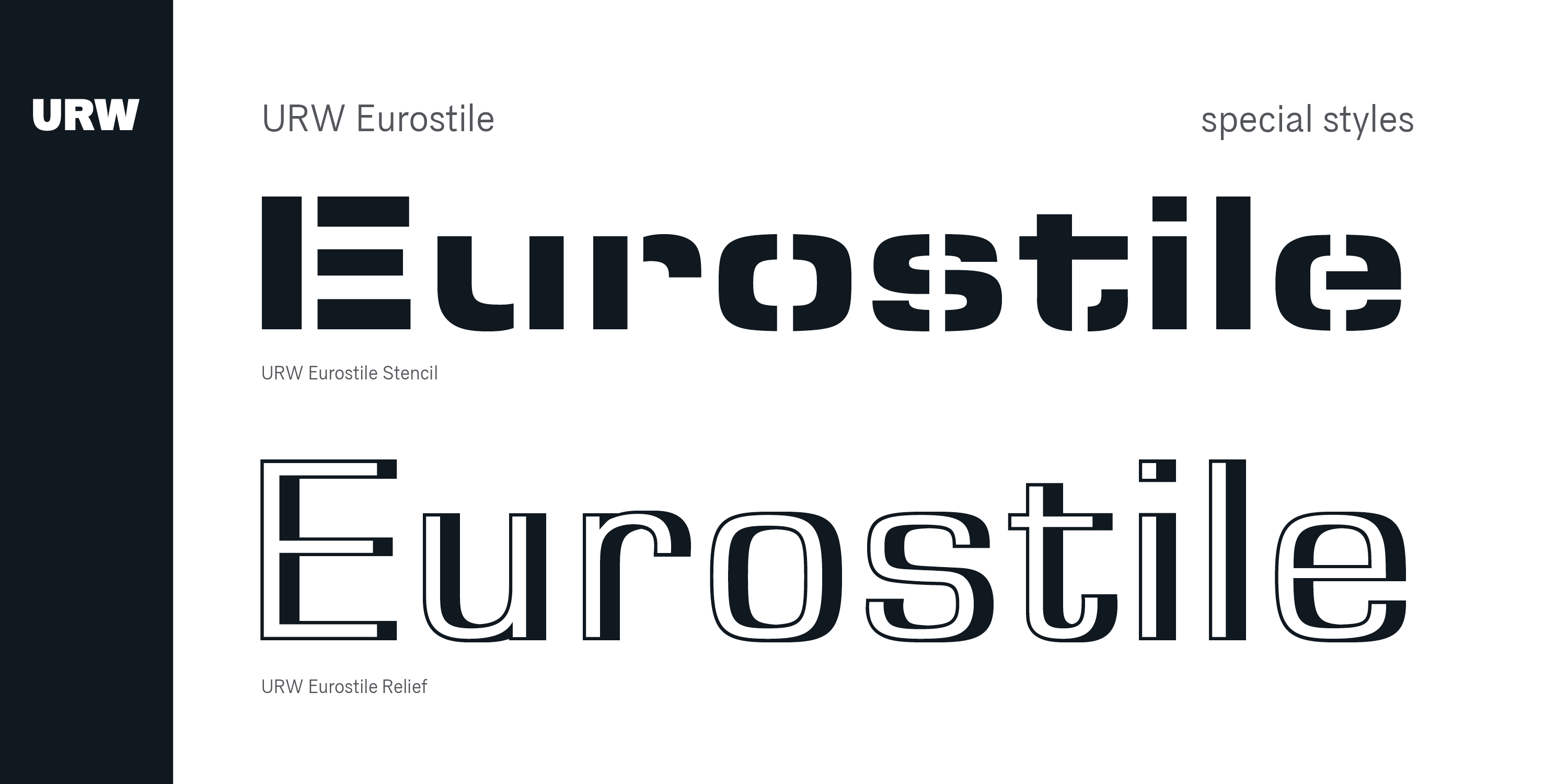
Eurostile Font excels in numerous design applications including technology branding, science fiction projects, automotive industry communications, aerospace materials, industrial packaging, futuristic signage, electronic product labels, corporate presentations, modern architecture, and cutting-edge marketing campaigns. Its technological character makes it perfect for organizations seeking to convey innovation and forward-thinking design excellence.
What makes Eurostile Font so exciting is its unique square-rounded letterforms and space-age aesthetic, featuring geometric precision, technological styling, and futuristic appeal that creates immediate recognition of innovation while maintaining excellent readability across industrial applications. The font's technological aesthetic conveys progress and modernity, making it ideal for companies seeking to establish cutting-edge positioning and scientific credibility.
The Eurostile Font family includes comprehensive weight variations: Light, Regular, Medium, Bold, Black, and their corresponding condensed and extended versions, plus technical symbol sets. Each family member maintains consistent geometric relationships while offering different levels of emphasis, providing designers with extensive typographic flexibility for systematic technological communications.
This exceptional typeface represents the perfect embodiment of mid-century futuristic design with contemporary functionality, making Eurostile Font Free Download an invaluable resource for technology designers. The font's space-age characteristics work exceptionally well in industrial and technology sectors where innovation, precision, and futuristic appeal are fundamental considerations.
Eurostile Font supports extensive international character sets including Western European, Eastern European scripts, plus comprehensive technical symbols and industrial notation. Its advanced OpenType features ensure professional typography standards across global technology communications and multilingual industrial applications worldwide.
Professional designers choose Eurostile Font for its ability to convey technological innovation and futuristic sophistication in corporate communications. The font's geometric nature makes it particularly effective for automotive companies, aerospace industries, technology corporations, and industrial manufacturers where modern appeal and technical credibility are essential.
The font's futuristic sophistication and geometric precision make it particularly suitable for car manufacturers, tech companies, aerospace firms, industrial design studios, and innovation-focused organizations. Its space-age appeal ensures designs remain cutting-edge and memorable across evolving technological landscapes.